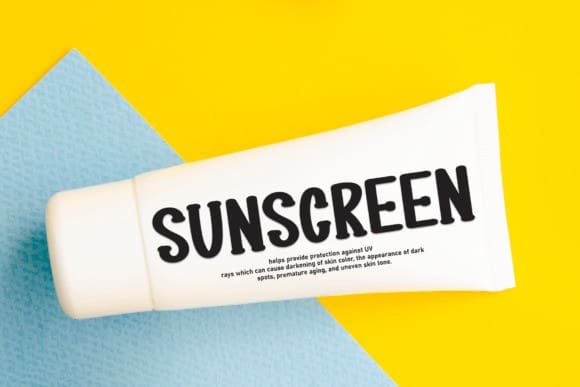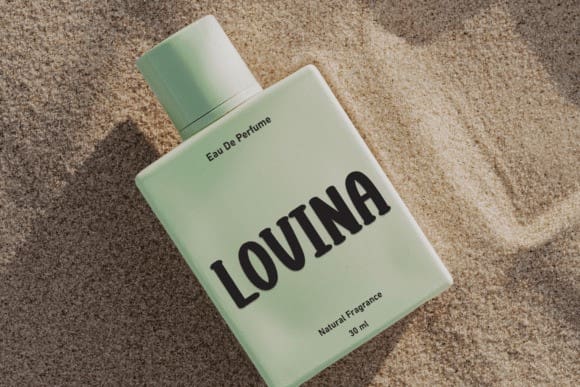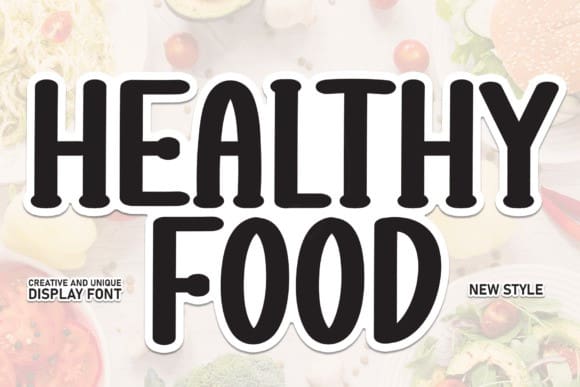
Healthy Food Font
Healthy Food is a sweet and friendly display font. Its natural and unique style makes it incredibly fitting to a large pool of designs. The only limit is your imagination!